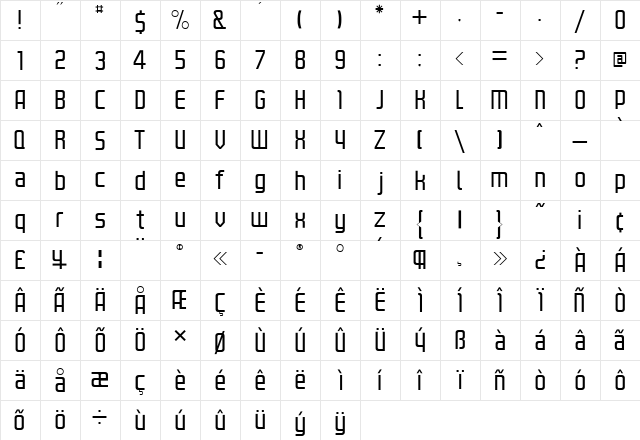
Kanal Light
Design Context for Kanal Typeface
Kanal offers clean, dependable letterforms without strong stylistic allegiance, making it a practical choice for designers who need flexibility. The delicate stroke weight brings airiness and refinement to layouts.